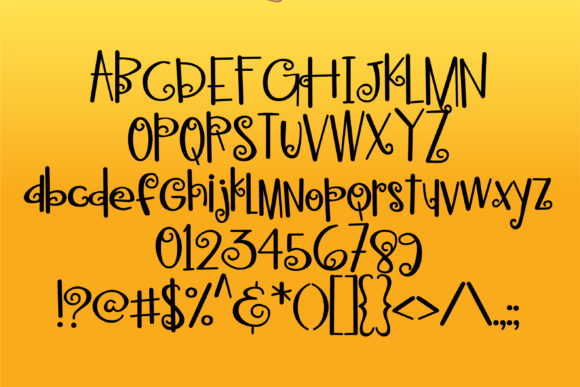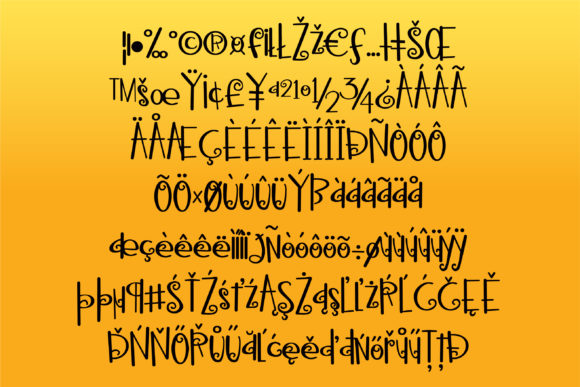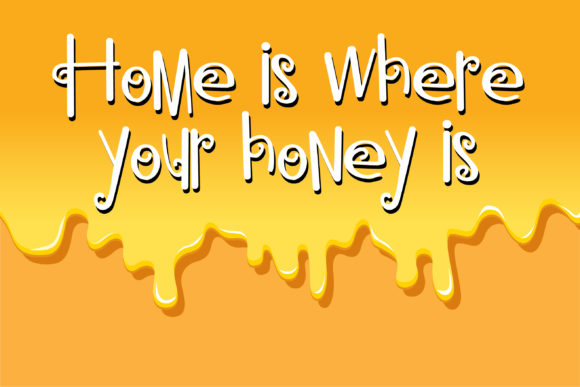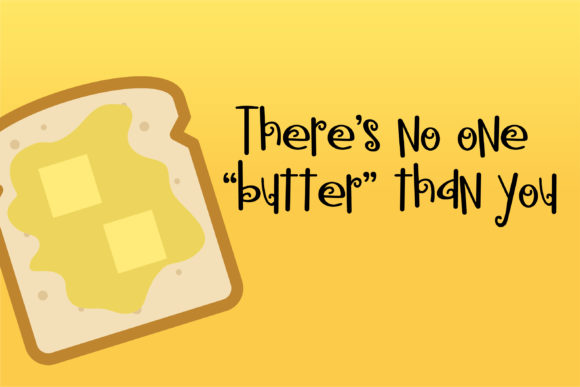
HomeScript FontsHoneygrammy Font Script Fonts Honeygrammy Font FacebookXPinterestWhatsApp Honeygrammy Font Poster 2 Honeygrammy Font Poster 3 Honeygrammy Font Poster 4 Honeygrammy Font Poster 5 About Honeygrammy Font This whimsical sans serif font features youthful curls throughout. DOWNLOAD NOW People also explored Wedding Card Font Blossom Font Forestia Handed Font Qiber Font Marsttar Font Aristha Font Le Mores Signature Font Green Tea Font Daily Smiles Font 274 0 TagsHoneygrammy Font Previous articleSouthlove Script FontNext articlePhat Print Font LEAVE A REPLY Cancel reply Comment: Please enter your comment! Name:* Please enter your name here Email:* You have entered an incorrect email address! Please enter your email address here Website: Save my name, email, and website in this browser for the next time I comment. Personal Use Free Die Nasty Personal Use Free Read more about this font Anti Personal Use Free Read more about this font Casual Personal Use Free Read more about this font Latifah Personal Use Free Read more about this font BLOG Elegant Wedding Invitation Fonts – Handwritten & Script Fonts Elegant Wedding Invitation Fonts Your wedding day is one of the most important moments of your life, and every detail matters—including your invitation design. Our... Where to Buy American Fonts Online in 2024 Best Fonts for T-Shirt Design – Top 2025 Picks Using Fonts in Digital Marketing: Tips to Strengthen Your Brand Identity